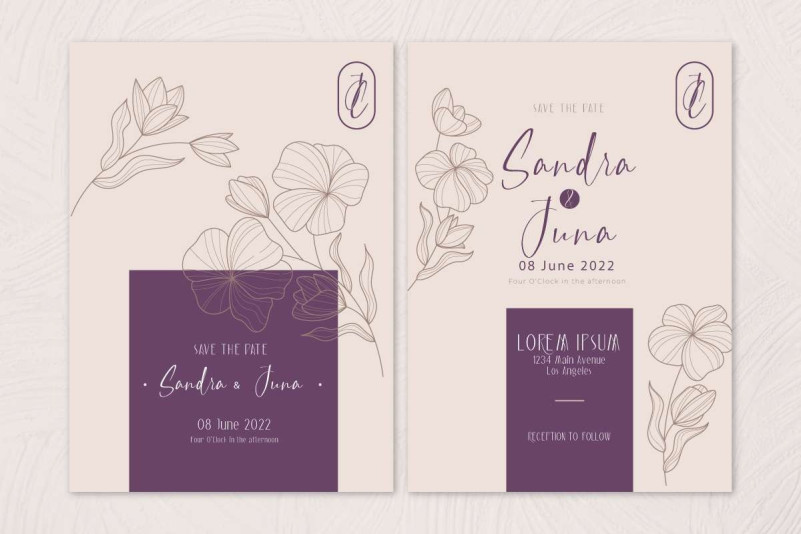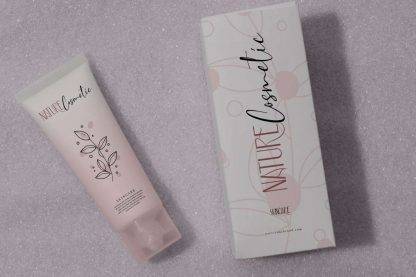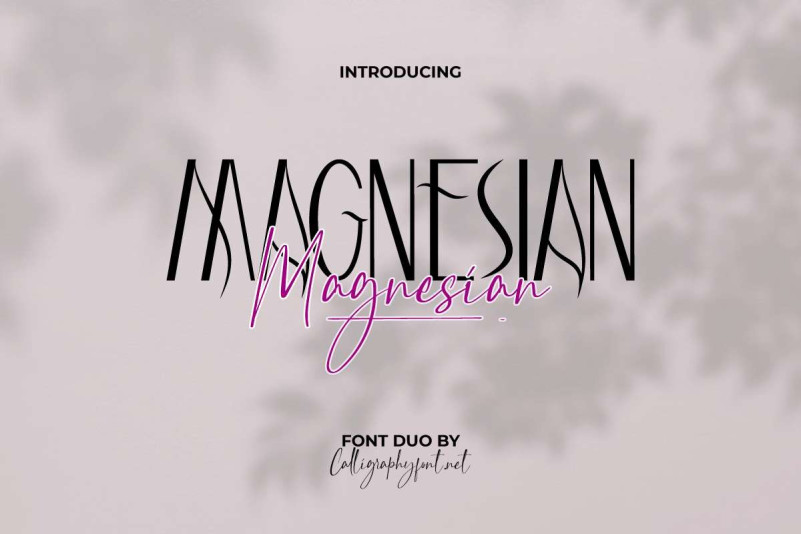
Magnesian Font Duo
Magnesian Font is an elegant font duo are two different font style but created hand in hand so they are interchangeable. Use together to avoid repetitive looks in your creative projects. This is an elegant and stylish font pair that will bring a unique style and a trendy look to your designs. With duo styles you can create design such as wedding design, beauty care, logos, products design, quotes, website, even for any design work that requires a modern or luxurious look.